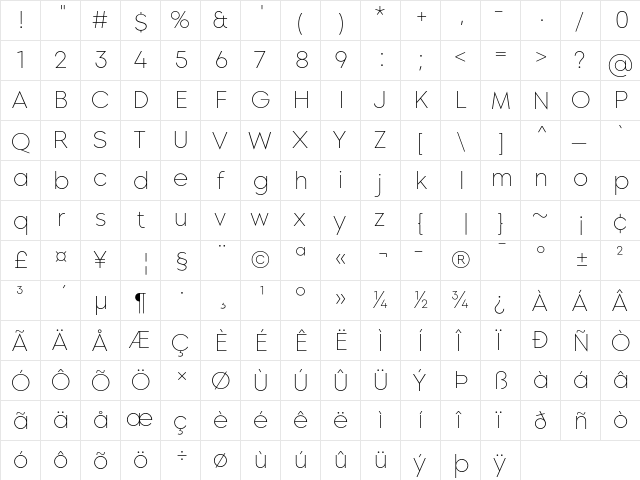
Morn Thin
Design Context for Morn Typeface
Morn is a composed and adaptable typeface that performs quietly and consistently across a wide range of design contexts. The delicate stroke weight brings airiness and refinement to layouts.